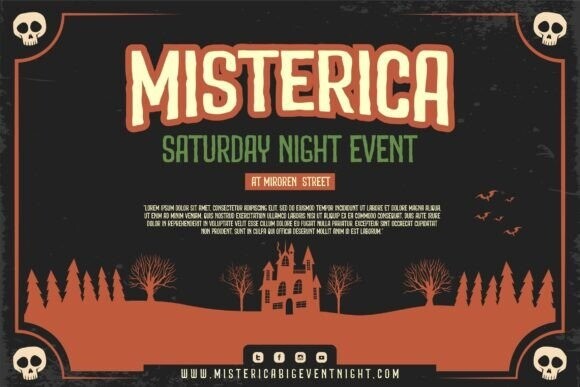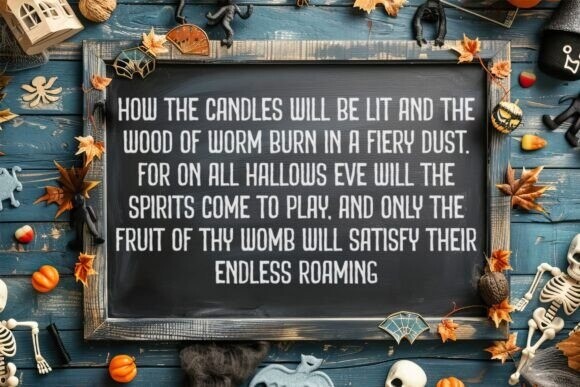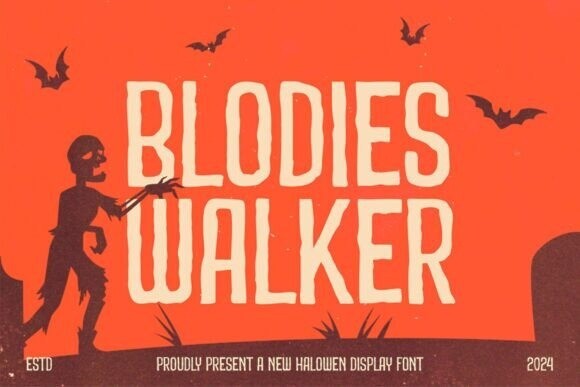
Blodies Walker Font
Blodies Walker Font is a bold display font designed specifically for Halloween themes. It features a simple yet strong character, creating a spooky but readable effect. The thick, slightly wavy letterforms resemble flowing, rough handwriting, evoking a horror atmosphere while maintaining elegance. Ideal for posters, banners, Halloween party invitations, and various eerie-themed design needs.